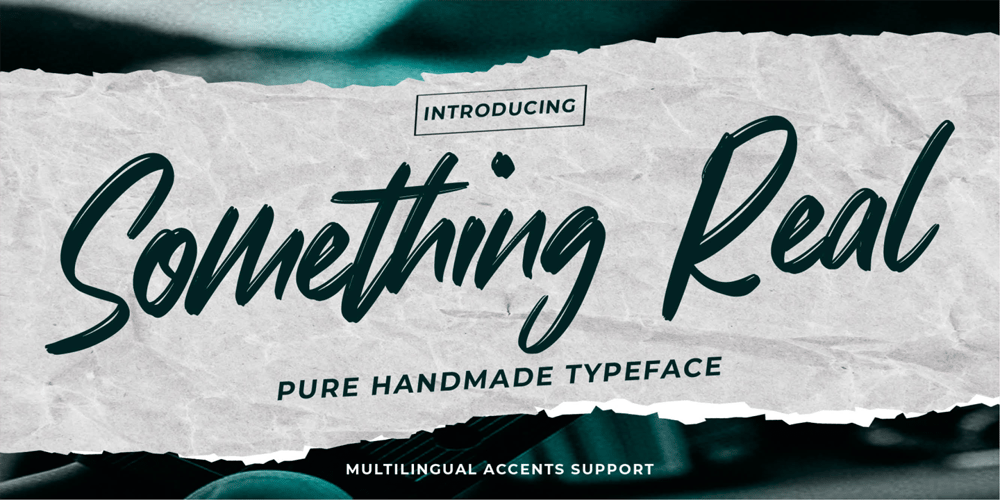
Something Real Font Family was designed by Abdul Malik Wisnu, Anang Fibriyanto and published by Gassstype. Something Real contains 1 styles and family package options. Hello Everyone, introduce our new product Something Real – Pure Handmade Typeface font with a Signature Style and classy style, this font is great for your creative projects such as watermark on photography, and perfect for logos & branding, photography, invitation, watermark,advertisements,product designs, stationery, wedding designs,label ,product packaging, special events or anything that need handwritting taste.That is why Something Real has charming, authentic and relaxed characteristic more natural look to your text with a more natural look to your text. You can activate Ligature OpenType panel.